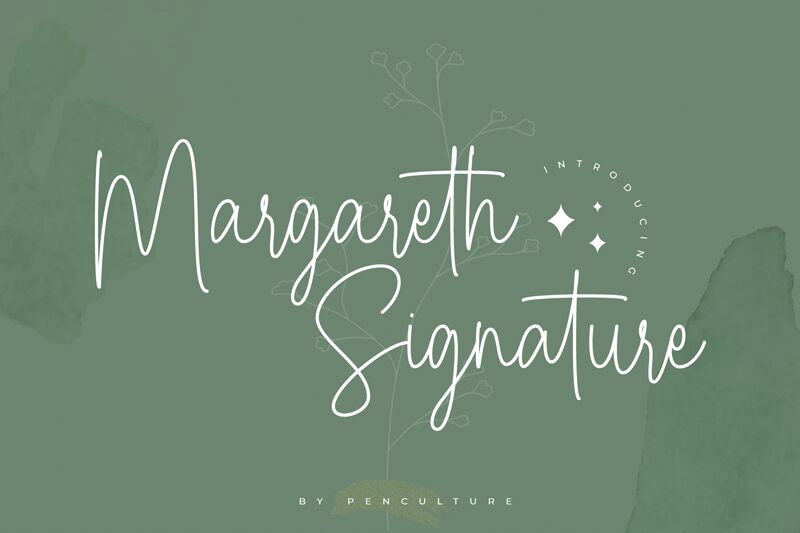
Margareth Signature is the perfect font for any creative project that requires a touch of elegance and sophistication. Designed by Pen Culture, this extra-light handwritten font style features a beautiful signature-style that is sure to elevate your branding, invitations, logos, and website designs. Whether you're looking to add a personal touch to your next project or want to create an upscale aesthetic, Margareth Signature has got you covered. Its delicate and feminine strokes are perfect for wedding invitations while its chic and modern flair makes it ideal for fashion branding. Give Margareth Signature a try today and add a touch of luxury to your design work!
Designed by Revo Farisky from Pen Culture in 2022